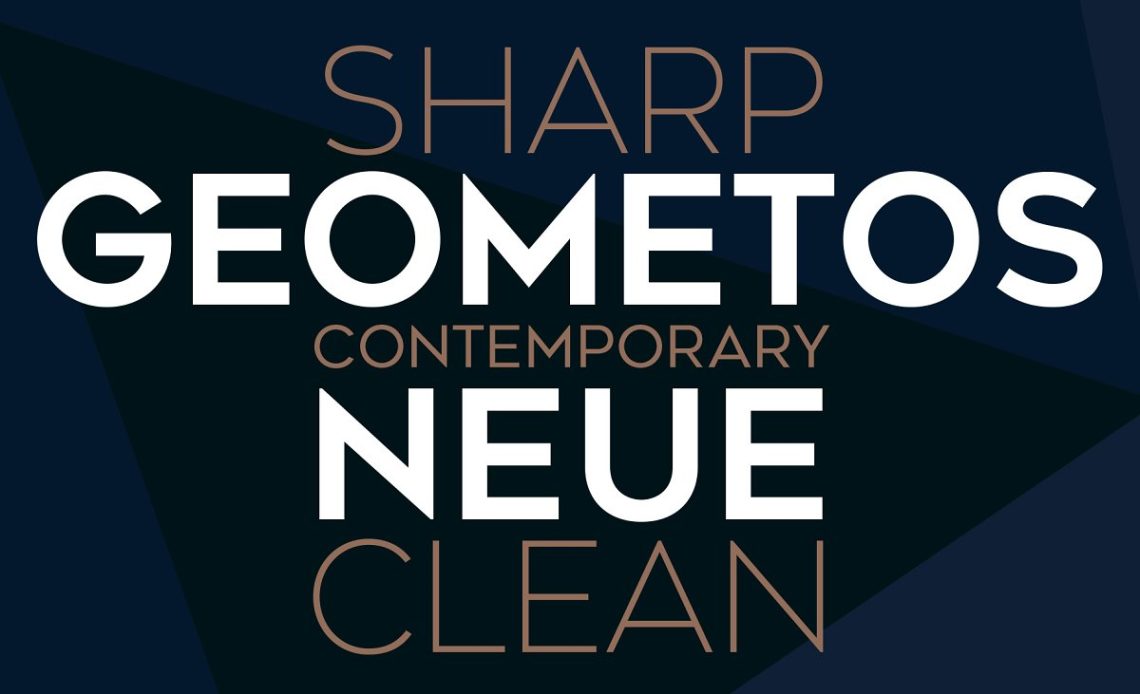
Introducing Geometos Neue Font Family, the ultimate choice for those seeking the best font for bold T-shirts. Created by the talented Deepak Dogra, this geometric sans-serif typeface is here to revolutionize your designs. With its sleek and modern appeal, Geometos Neue is perfect for capturing attention and making a lasting impression.
Geometos Neue boasts an impressive range of seven weights, ensuring that you have the flexibility to create eye-catching designs that suit your needs. Whether you're designing headlines, headings, branding materials, posters, packaging, titles, or logos, this font family is your go-to solution.
The clean and sharp lines of Geometos Neue exude confidence and professionalism. Its all caps display font style adds a touch of emphasis and boldness to your designs, making them stand out from the crowd. This font family is specifically crafted to make a statement and leave a lasting impact on your audience.
When it comes to marketing your products, visuals play a crucial role. Geometos Neue understands this perfectly and ensures that your designs captivate the viewer's attention. Each letter is meticulously designed to create a harmonious and visually pleasing composition, making your message more impactful and memorable.
Geometos Neue is the perfect companion for designers, entrepreneurs, and anyone looking to enhance their creative projects. Its versatility allows it to seamlessly adapt to various design styles, ensuring that it remains a timeless choice for years to come.
Choosing the right font can evoke emotions and connect with your target audience on a deeper level. Geometos Neue's bold and charismatic design effortlessly conveys confidence, power, and a sense of modernity. It helps you deliver your message with clarity, ensuring that your audience understands and resonates with your brand.
In a world where first impressions matter, Geometos Neue Font Family is your secret weapon. Elevate your designs, captivate your audience, and make your brand unforgettable with this remarkable font family. Unlock endless possibilities and create stunning designs that leave a lasting mark.